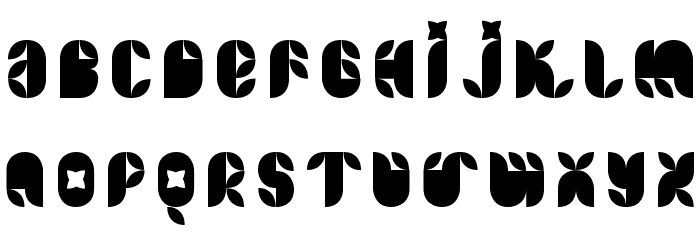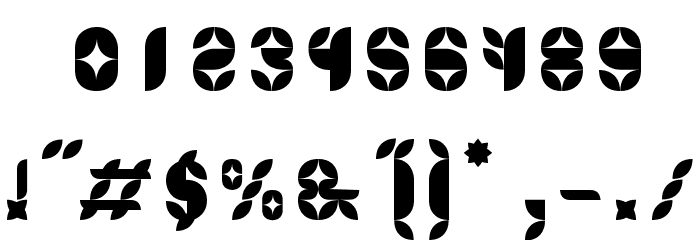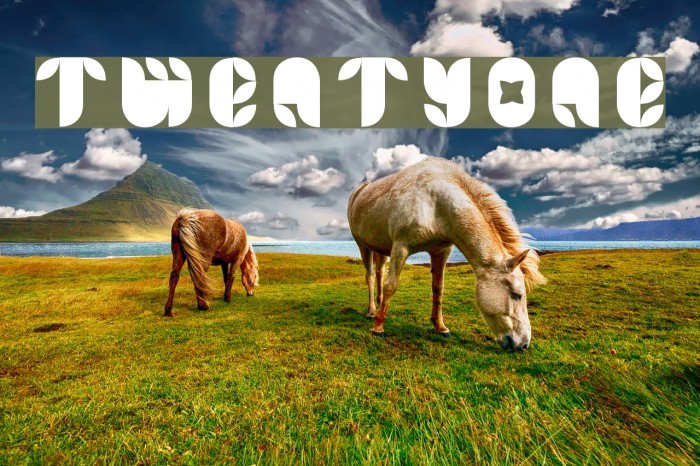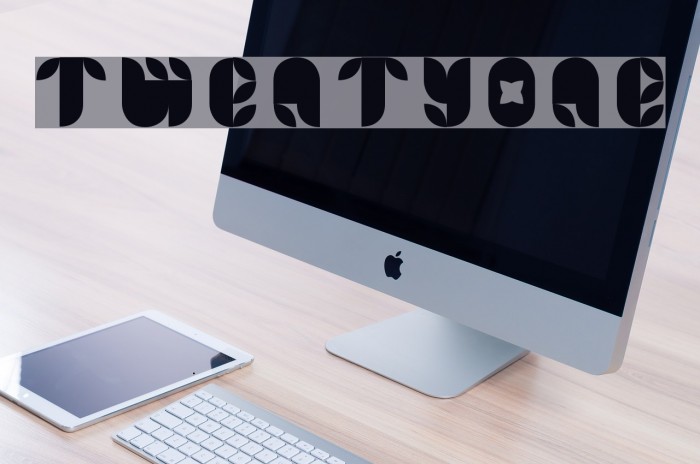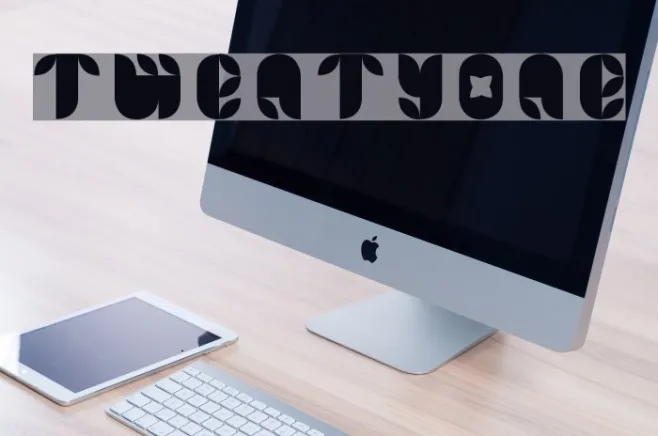
TWentyONe Font
This font features a bold and decorative style with a unique, geometric design. Each character is crafted with a combination of solid shapes and negative space, creating a striking visual effect. The letters and numbers are composed of thick, rounded forms with cut-out sections that add an artistic flair. The special characters maintain this cohesive design, making the font ideal for eye-catching displays. Its boldness and distinctiveness make it suitable for projects that require a strong visual impact.
A bold, geometric, and decorative font with unique cut-out designs.
- Proposed Projects: Ideal for branding, posters, album covers, and any project needing a bold, artistic touch.